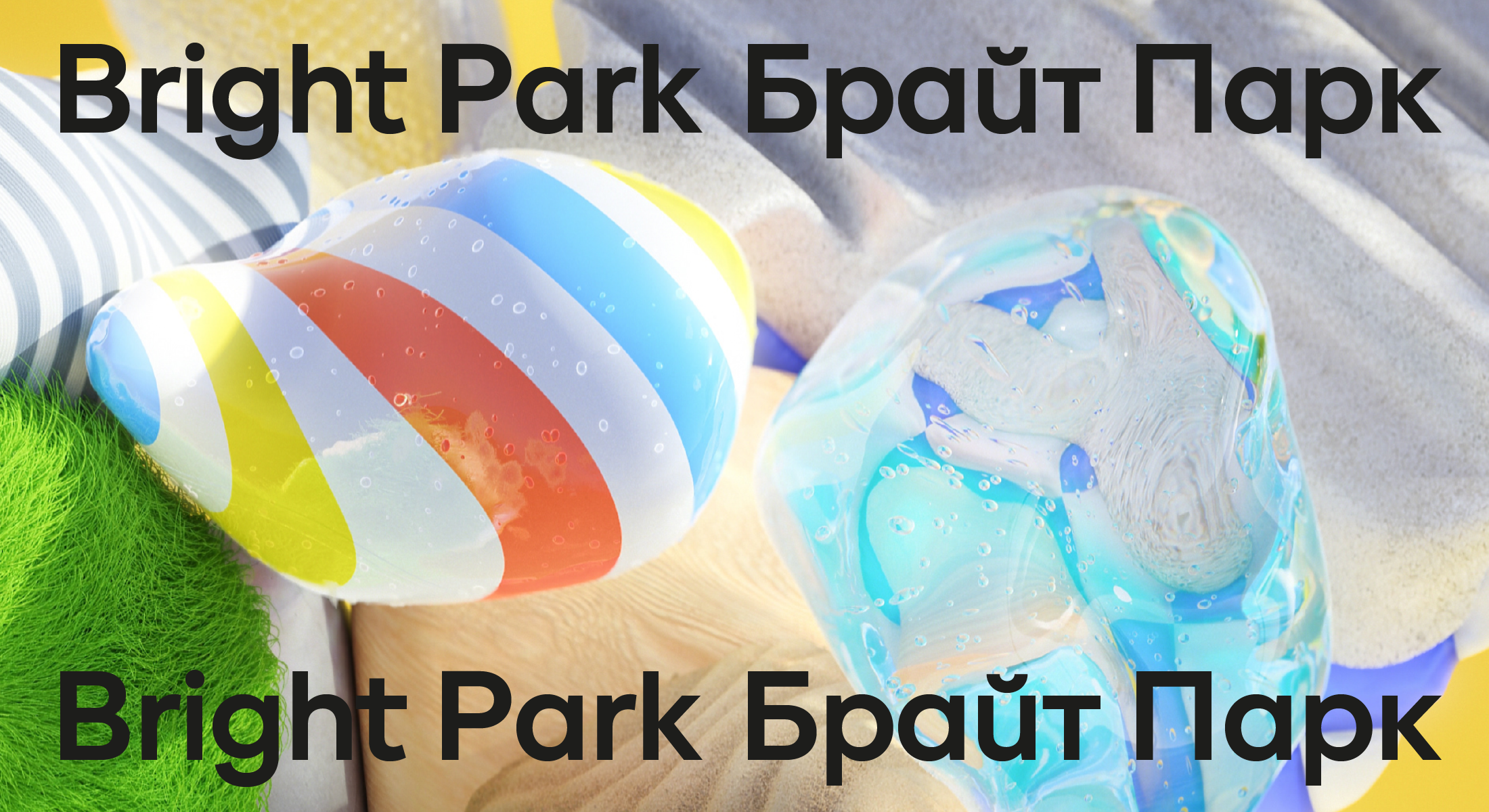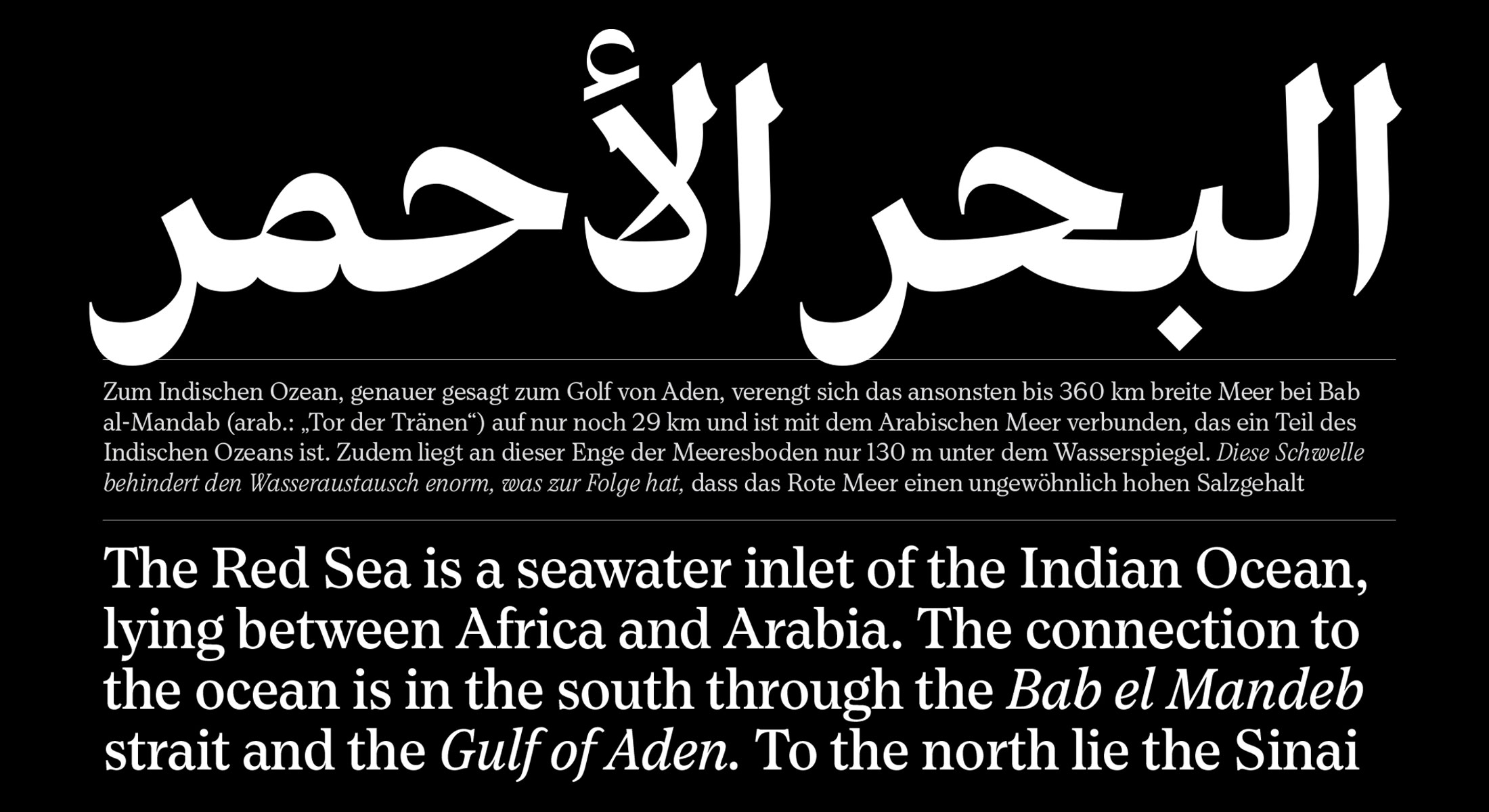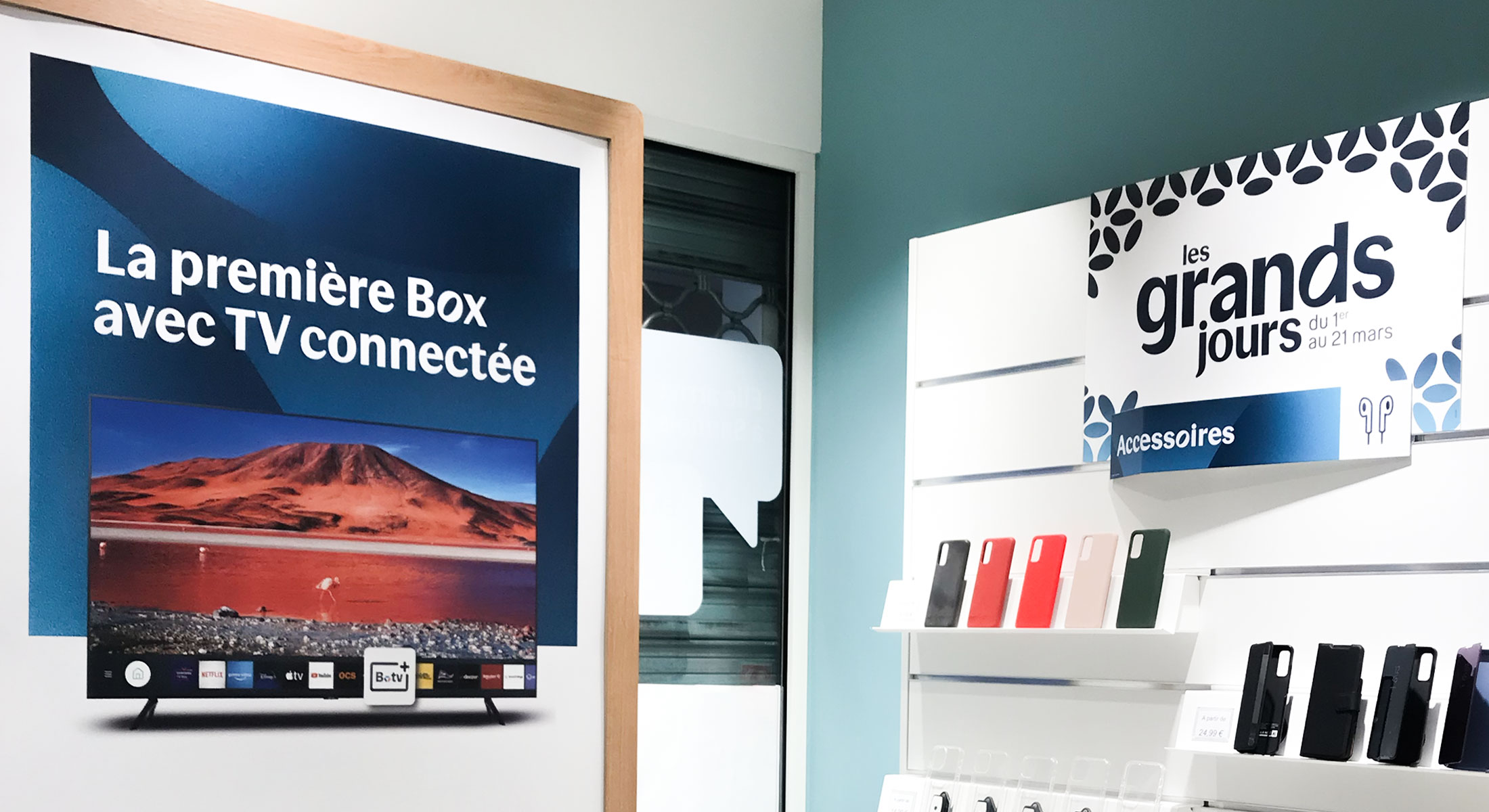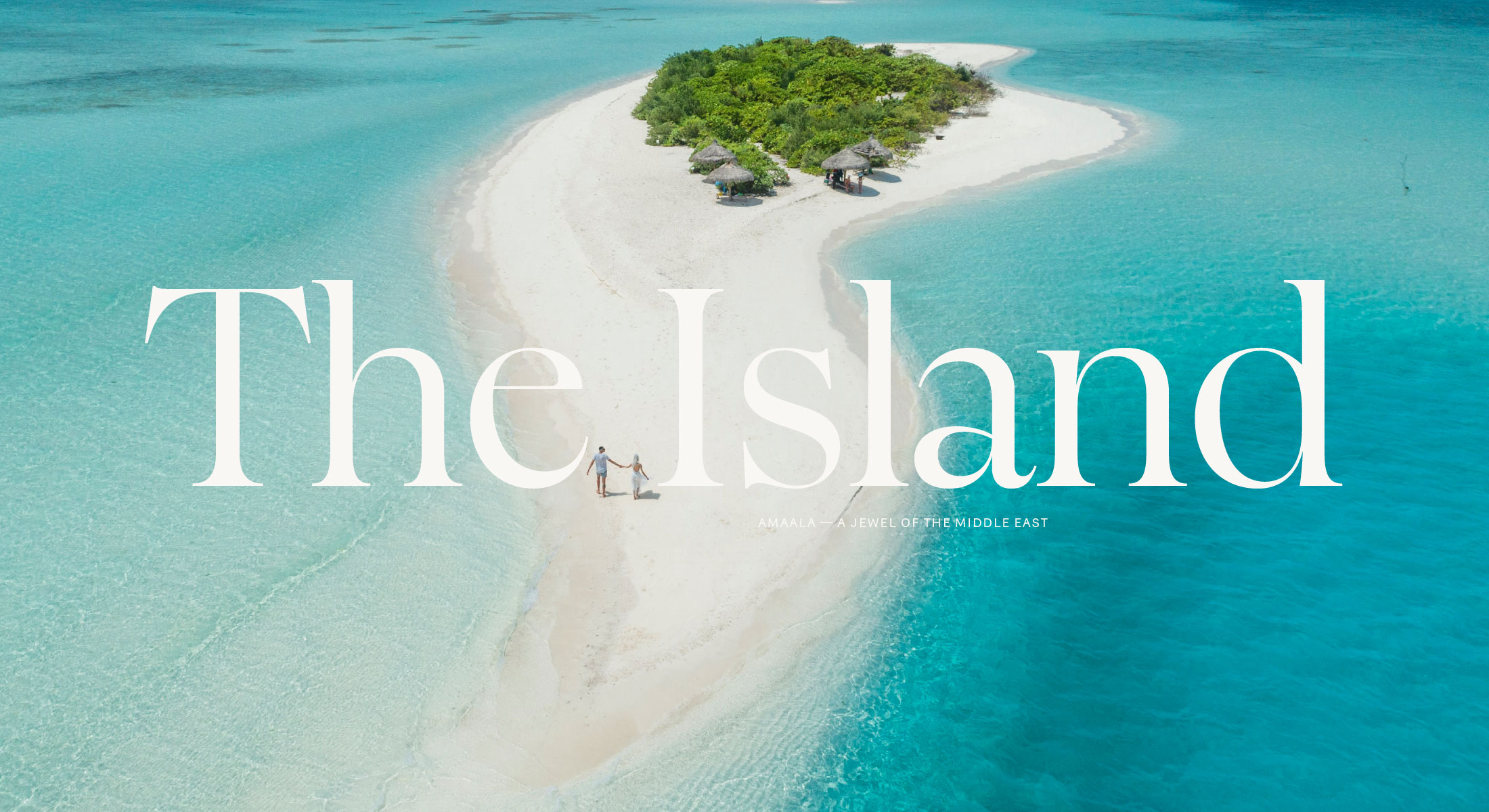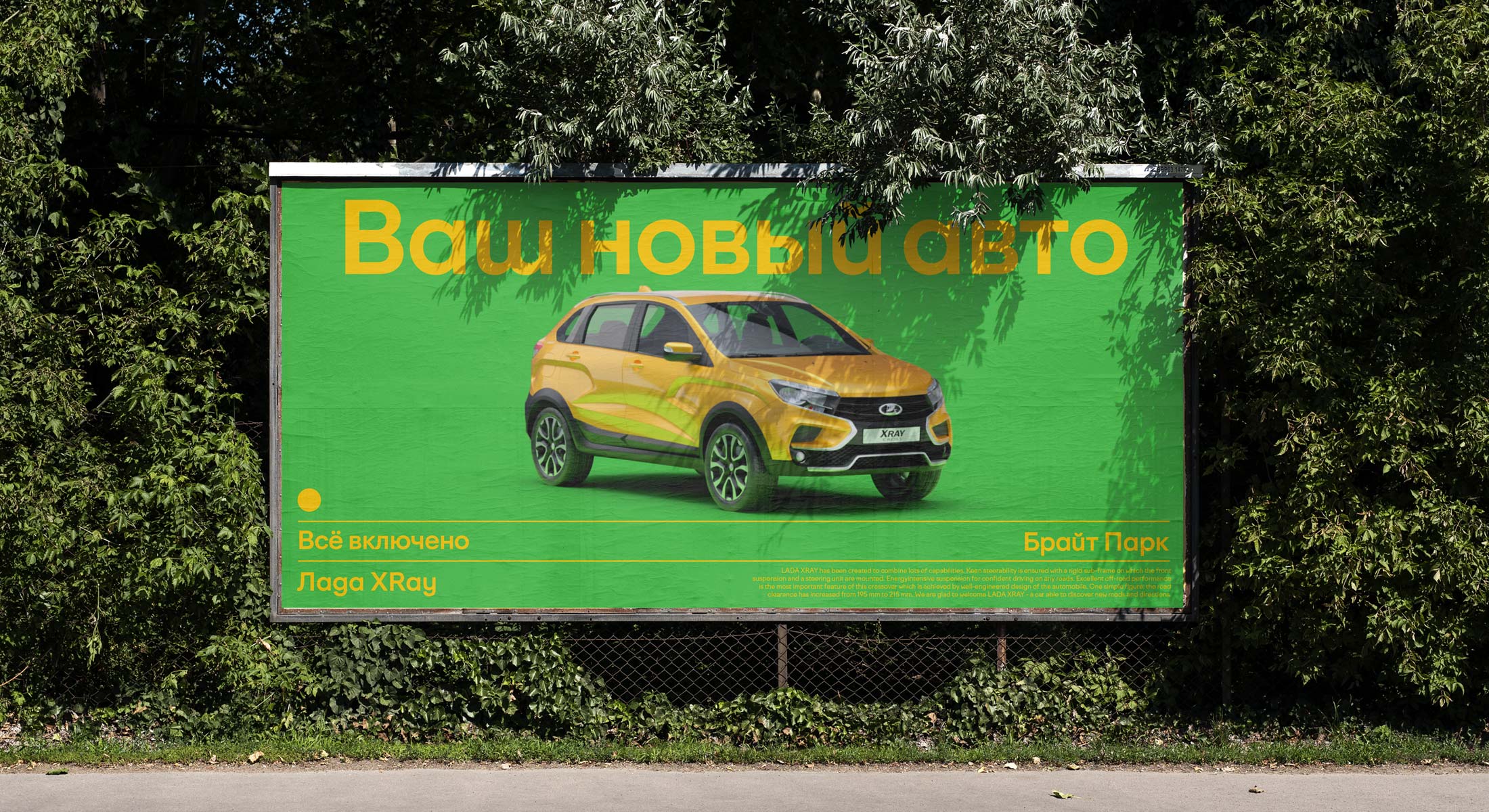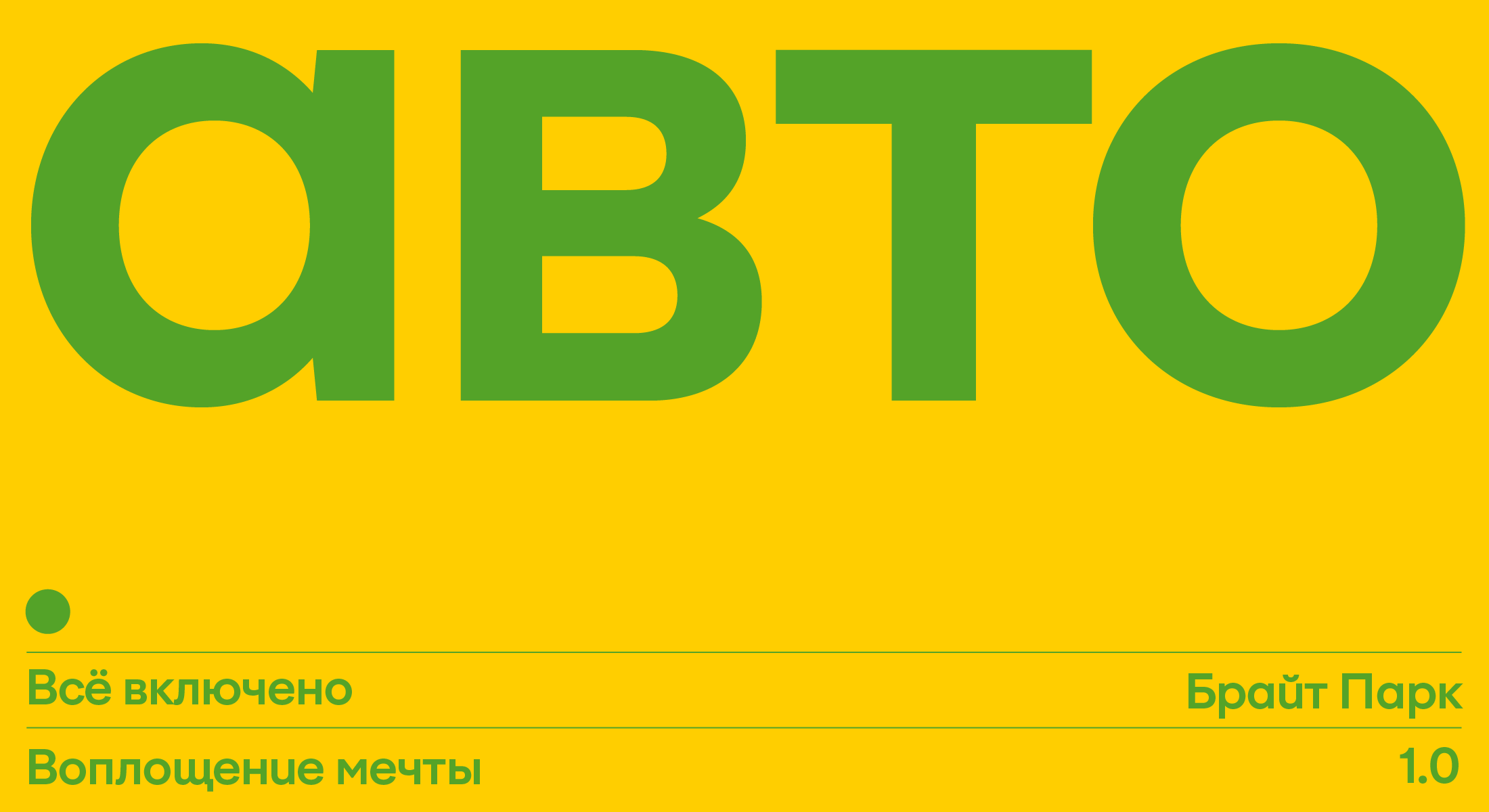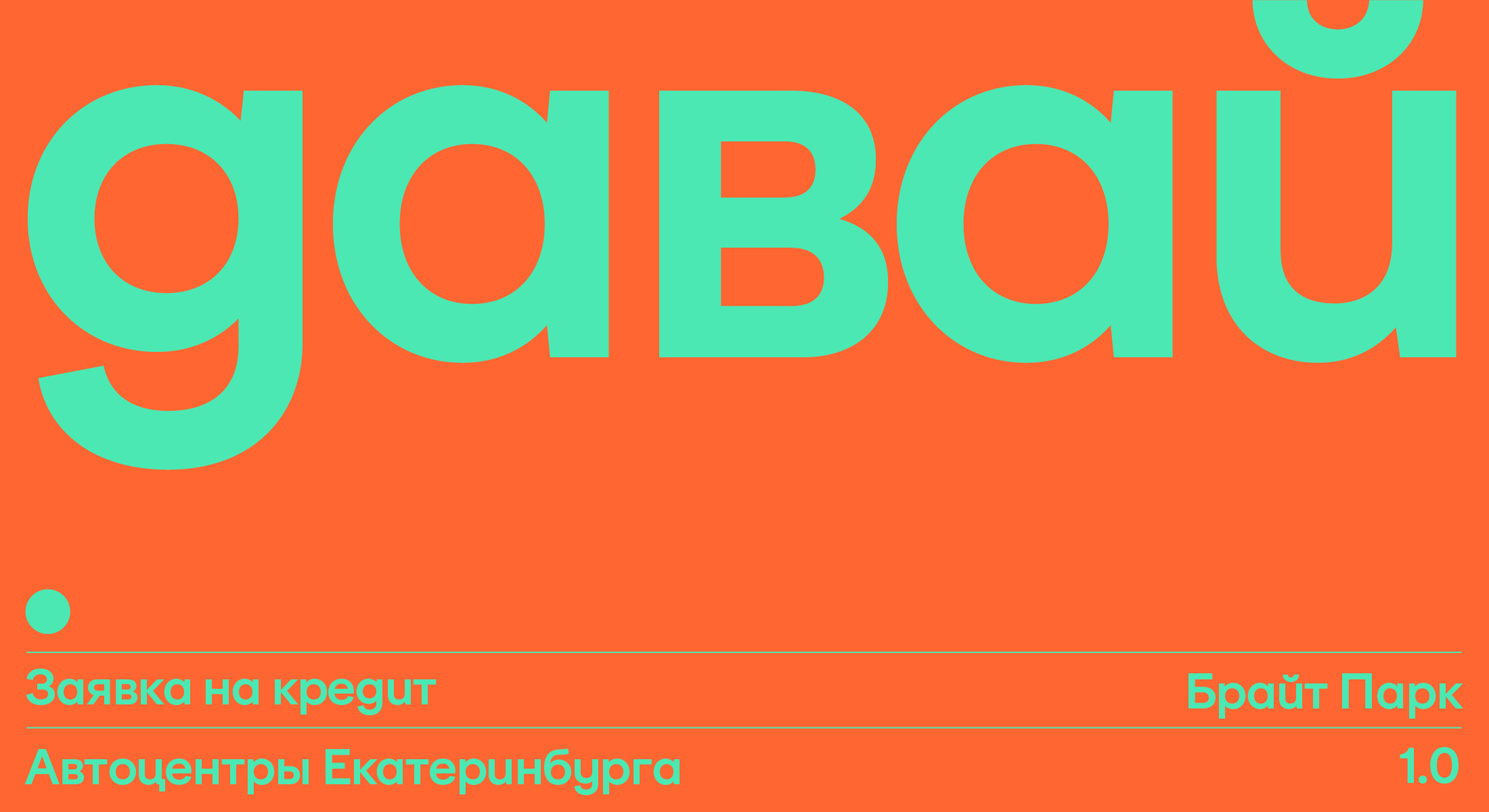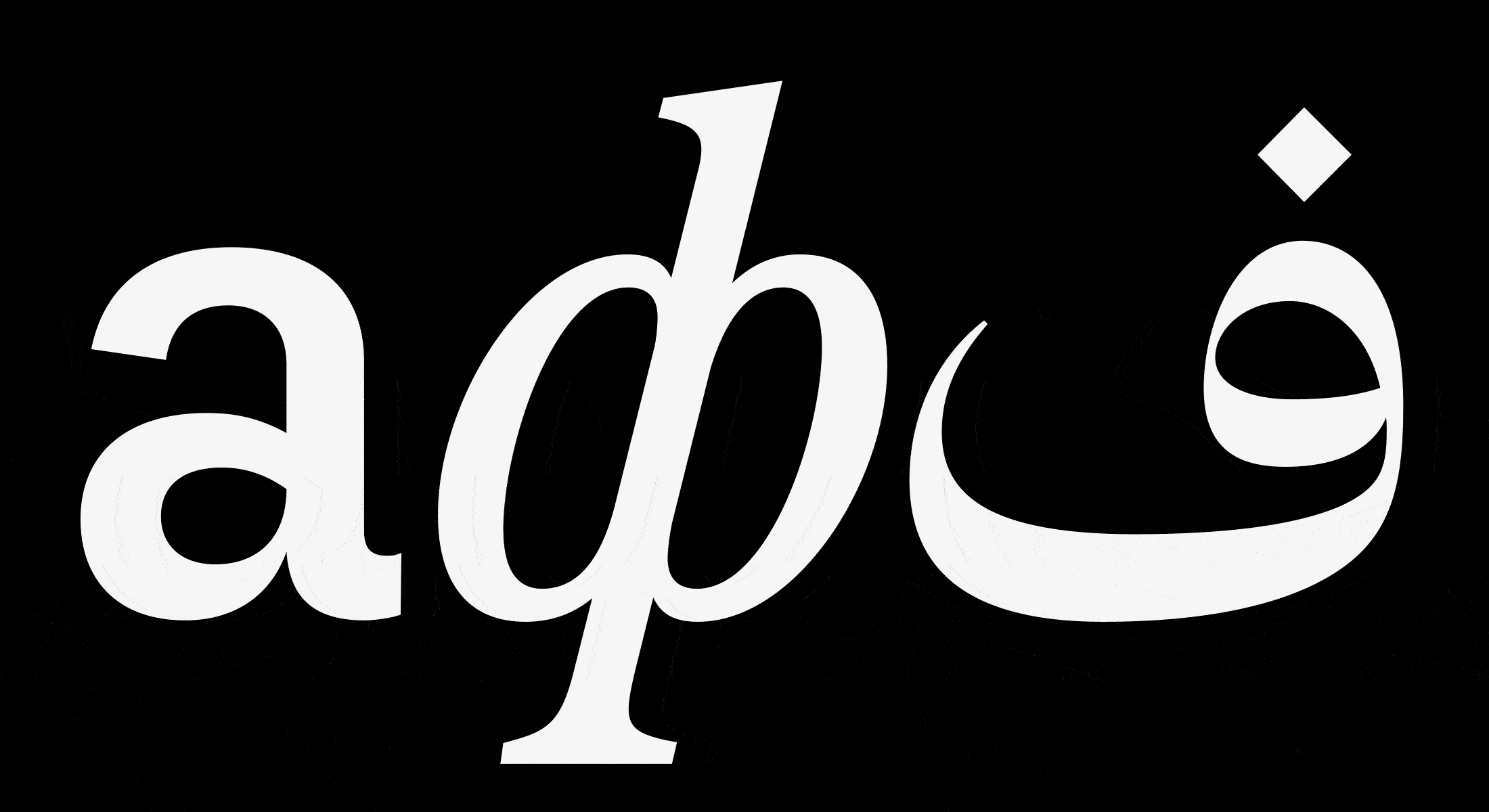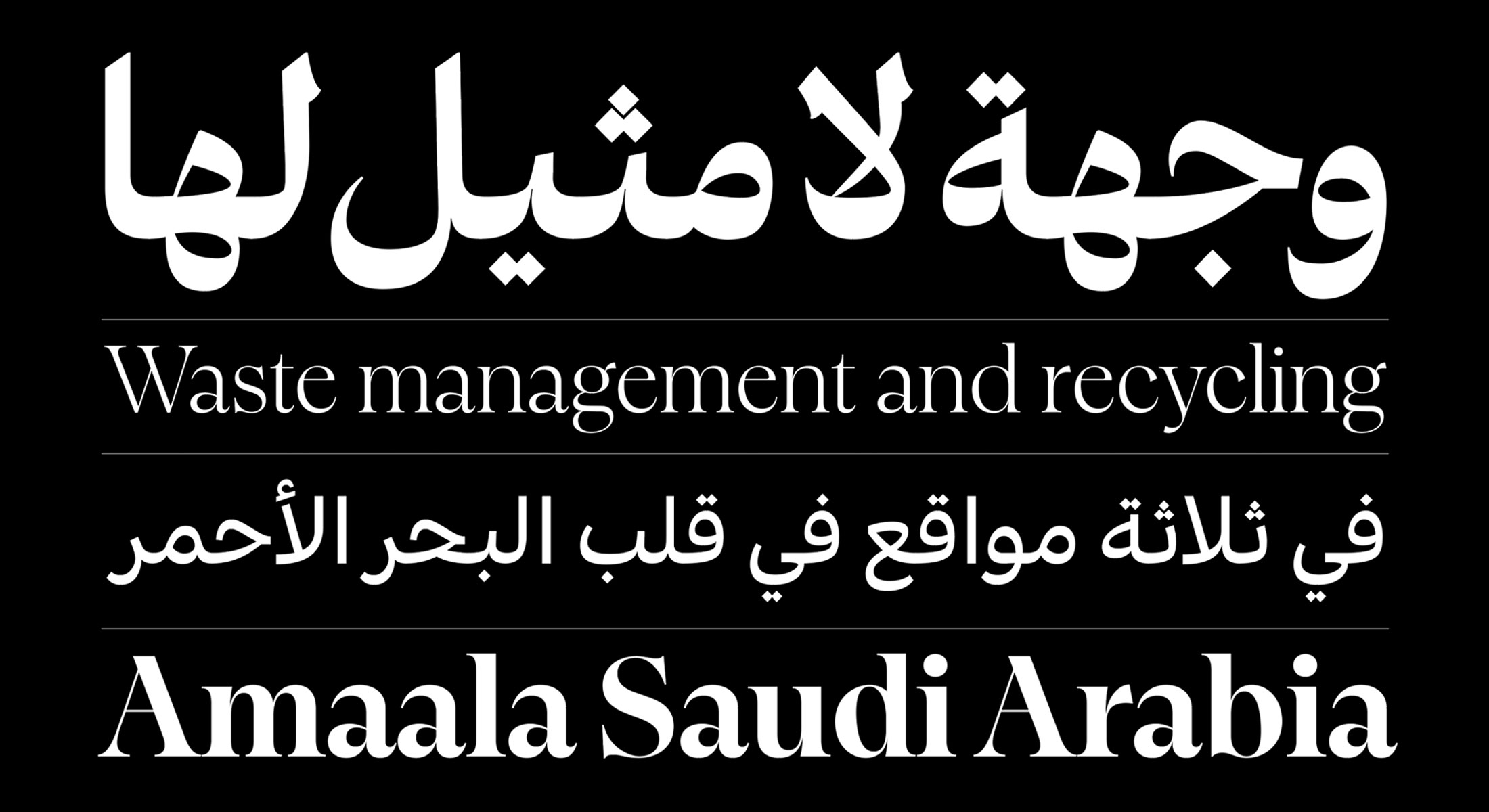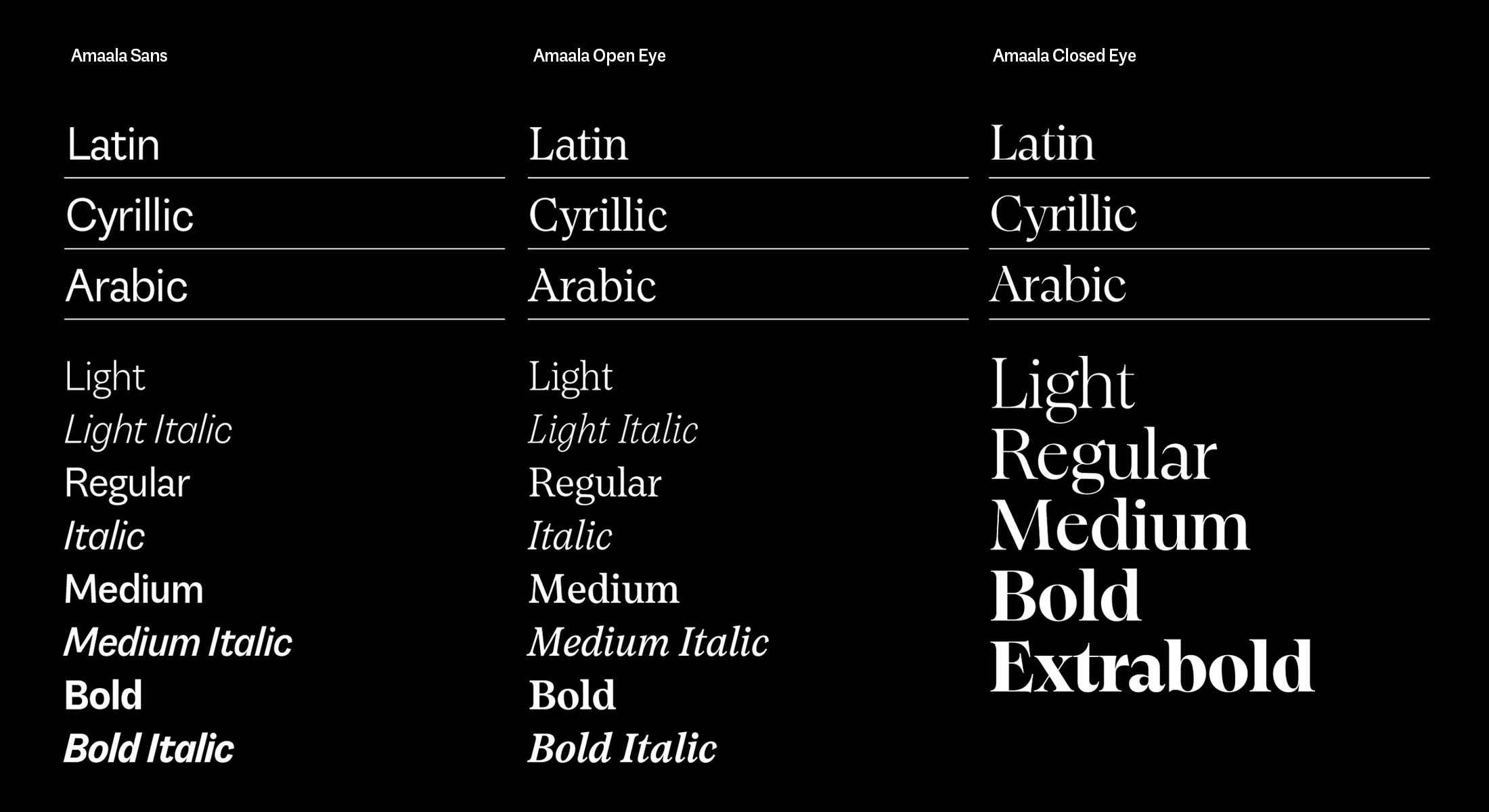
Amaala, Saudi Arabia
Amaala is the ultimate luxury resort in Saudi Arabia, located in a unique location on the coast of the Red Sea. As part of the global branding project, that reflects the cultural roots and the unique features of the destination, we were asked to create a global type system. We design a multi-script (Arabic, Latin & Cyrillic), Sans, Serif, Display and Text mega family that could be used in any situation from signage and installations to text setting in small sizes.
Bouygues Telecom, France
Bouygues Telecom is one of the largest mobile and internet operators in France. As part of their rebranding project the company was looking for a new type system that would reflect their jovial personality and tech approach. Together with BETC we created 2 type families: Bouygues Speak and Bouygues Read. The Speak family that is used for titles, has a set of alternates for round letters such us 'o', 'd', 'b'...etc. The diagonal oval counters stem directly from Bouygues' logo. The Read family is destined for text setting. Its techy design well complements the friendly personality of Bouygues Speak.
Bright Park, Russia
Bright Park is the biggest car dealer in the Ural Region, Russia. The new display typeface we created plays a central role in rebranding, which takes a bold and risky approach for a somewhat 'traditional' business model. Bright colors and an innovative approach to a 'latinised' cyrillic all come together to create something truly unique.